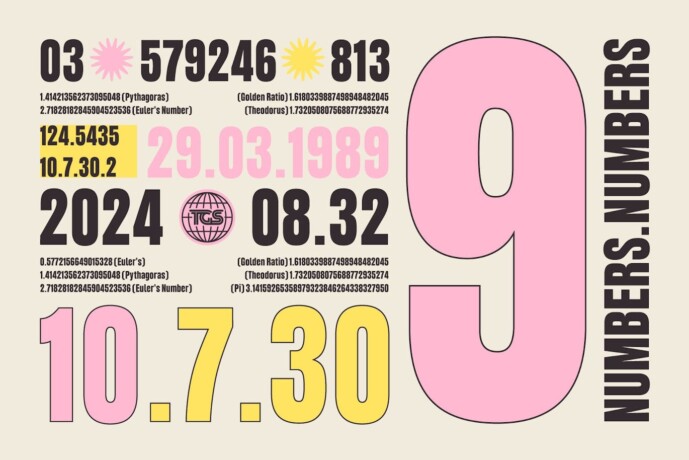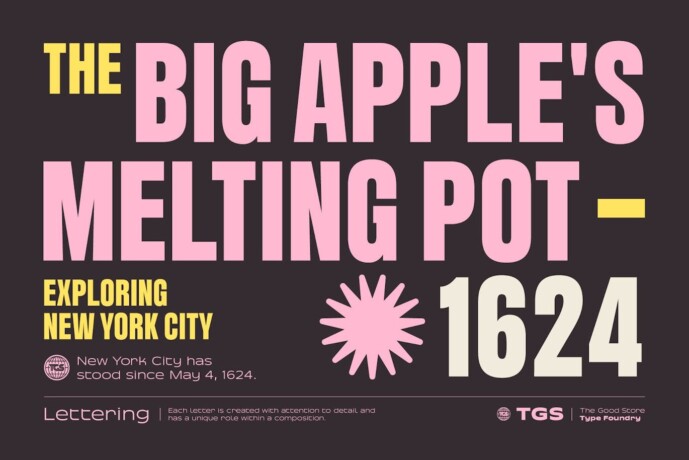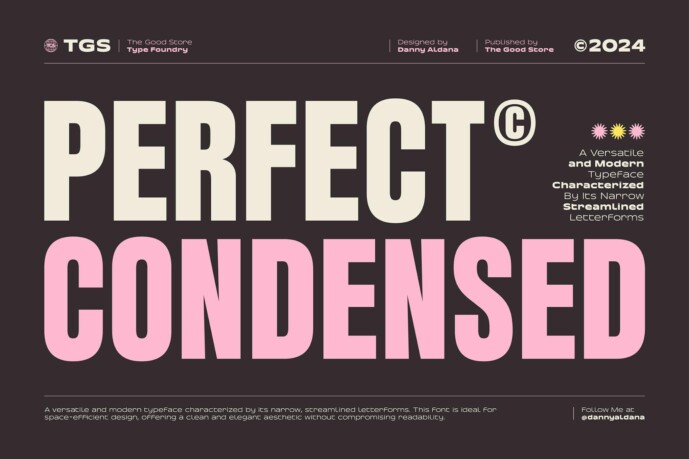
Perfect Condensed Font
Designer: dannyaldana
Perfect Condensed Font, a versatile, modern font that is characterized by its narrow, clean letterforms. This font is ideal for a space-saving design, providing a clean and elegant aesthetic without compromising readability.